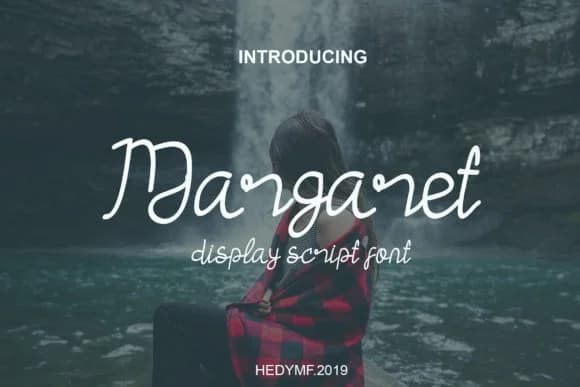
Picture a bride-to-be scrolling through font options for her invitations, searching for something that feels personal without sacrificing polish. Margaret, designed by Letterdy, is a script that manages this balance beautifully. Its flowing letterforms carry understated, sophisticated elegance, making it ideal for wedding invitation suites, luxury candle labels, and custom thank-you card sets. The font works equally well as a header on a boutique lifestyle blog or as the foundation for social media graphics where you want to signal refinement without unnecessary flourish.
What makes Margaret genuinely useful is its readability despite the delicate appearance. The letterforms maintain consistent flow across sizes, keeping both small product labels and large display work equally legible and refined. Designers often reach for it when creating high-end branding systems, business card suites, or personalized stationery where hand-lettered quality matters but legibility cannot be compromised.
The script brings contemporary sensibility to work that might otherwise feel overly formal or dated. Every curve feels intentional, never overwrought. The letterforms stay balanced even at small sizes, so it handles fine details in invitation suites or DIY craft projects with equal grace. Find Margaret on Creative Fabrica and add that sophisticated handwritten quality to your next project.
Margaret Font is a script font that shines as a display or heading face. Pair it with a clean sans-serif or serif font for body text β the contrast creates a clear hierarchy while the two styles stay balanced and easy to read.